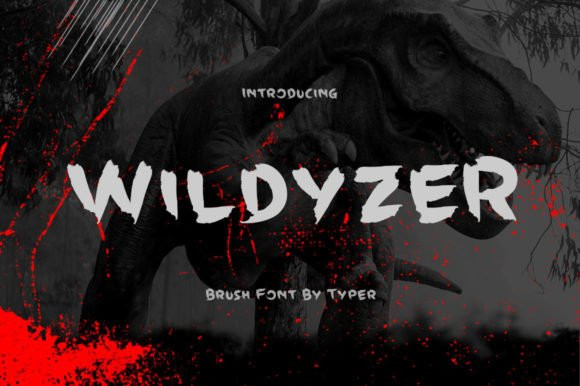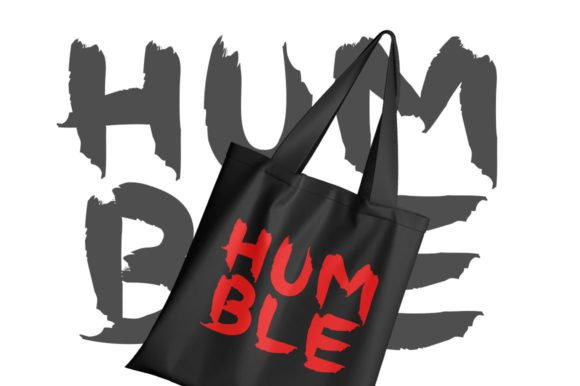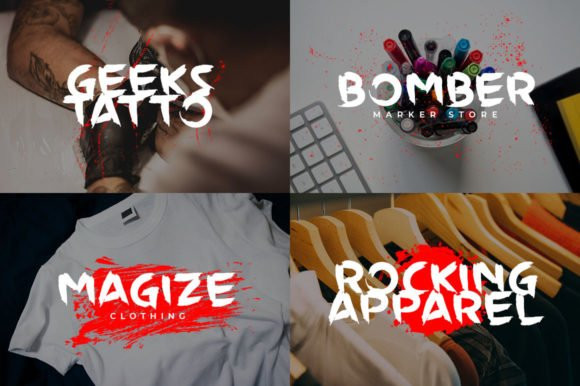
Wildyzer Font
Wildyzer is a cool, bold and brushed display font. No matter the topic, this font will be an incredibly asset to your fonts’ library, as it has the potential to elevate any creation.